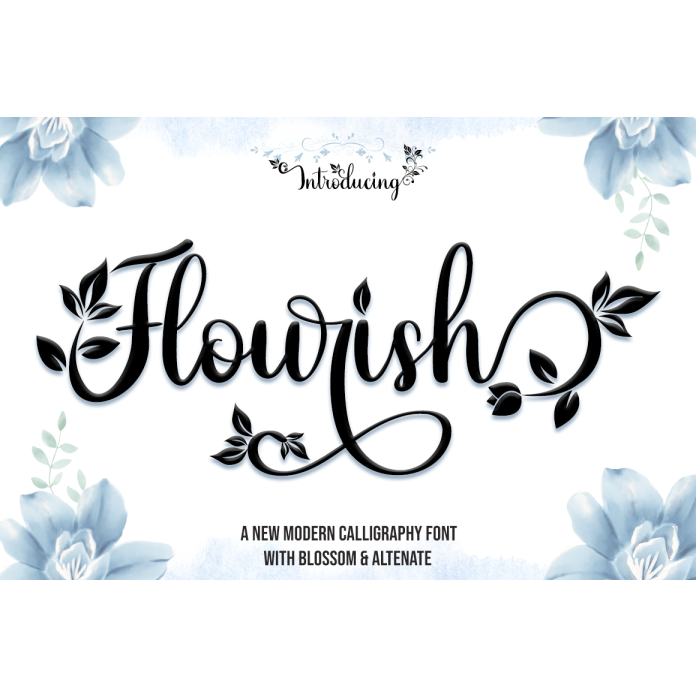
Flourish is a sweet and friendly handwritten font. Its natural and unique style makes it incredibly fitting to a large pool of designs. The only limit is your imagination!
Total glyph count: 269